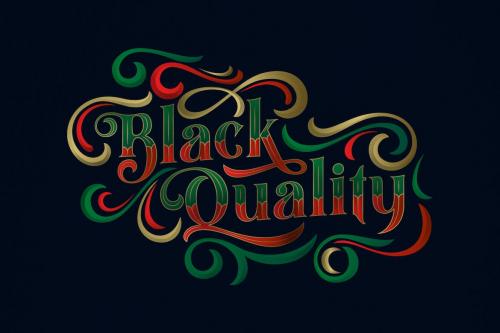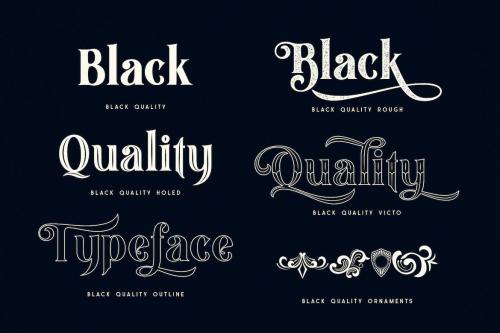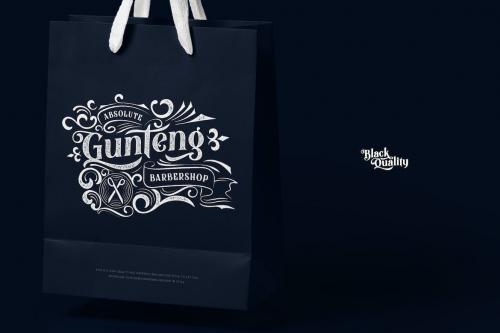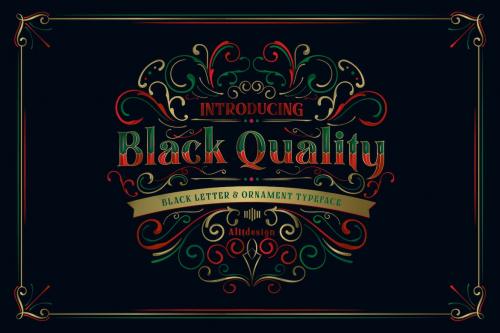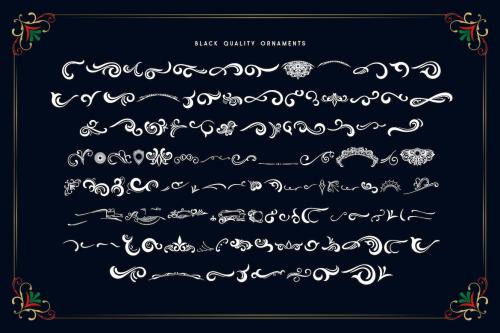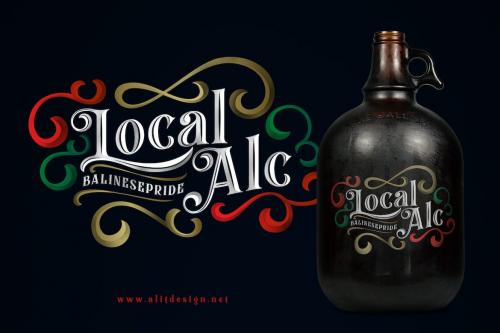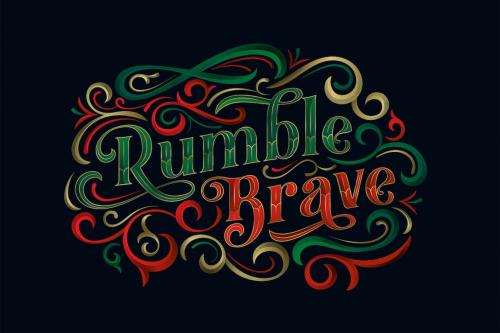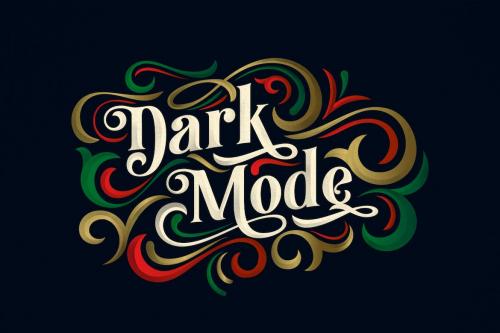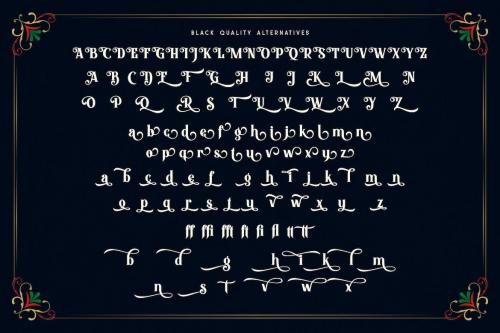
Thank you for clicking and visiting the**Black Quality** font page. Introducing my name is Alit Suarnegara from Alitdesign, This time I released a font with an elegant and certainly cool Black Letter style. The process of making this font from sketching to the final file takes up to 5 months. Black Quality fonts can be used as a font layer but can also be used alone without a layer, many styles that you can combine from the outline to the Rough style.
Black Quality font family is perfect for Victorian, Classic, Elegant and vintage designs. This font is very well used for design Wine, vodka packaging, beer logo, tattoo studio, and others.
Besides you get letter fonts you also get "BONUS" ornament sets in the form of font formats. You can combine all ornament elements as in the Black Quality font display.